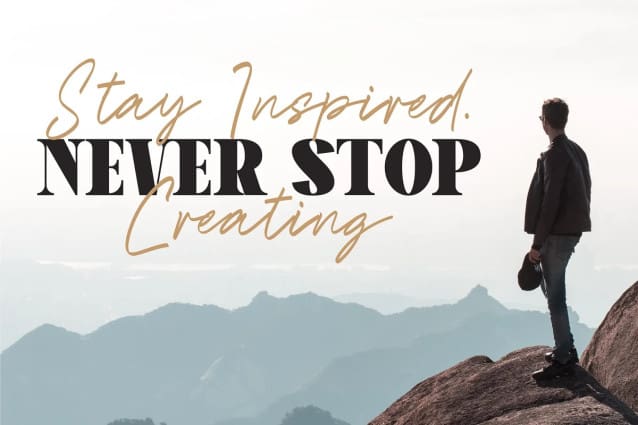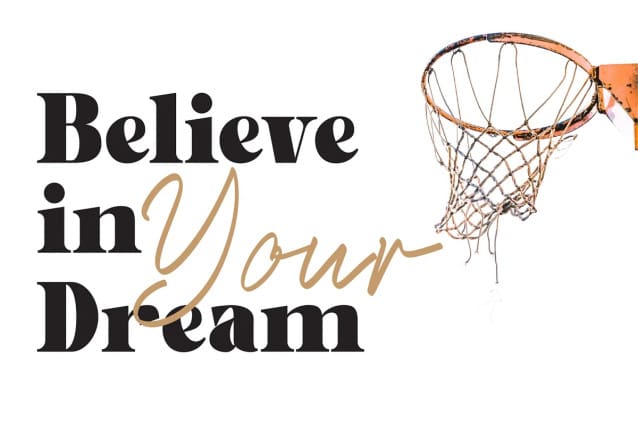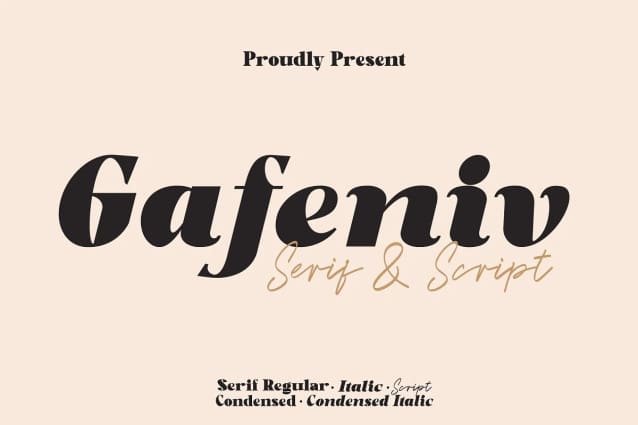
Gafeniv Font Duo
Gafeniv Font Duo, it has an elegant and playful look that can be used for logos, branding, invitations, stationery, wedding designs, social media posts, and so much more. Features: Alternate Characters Numbers and punctuation Multilingual PUA encoded